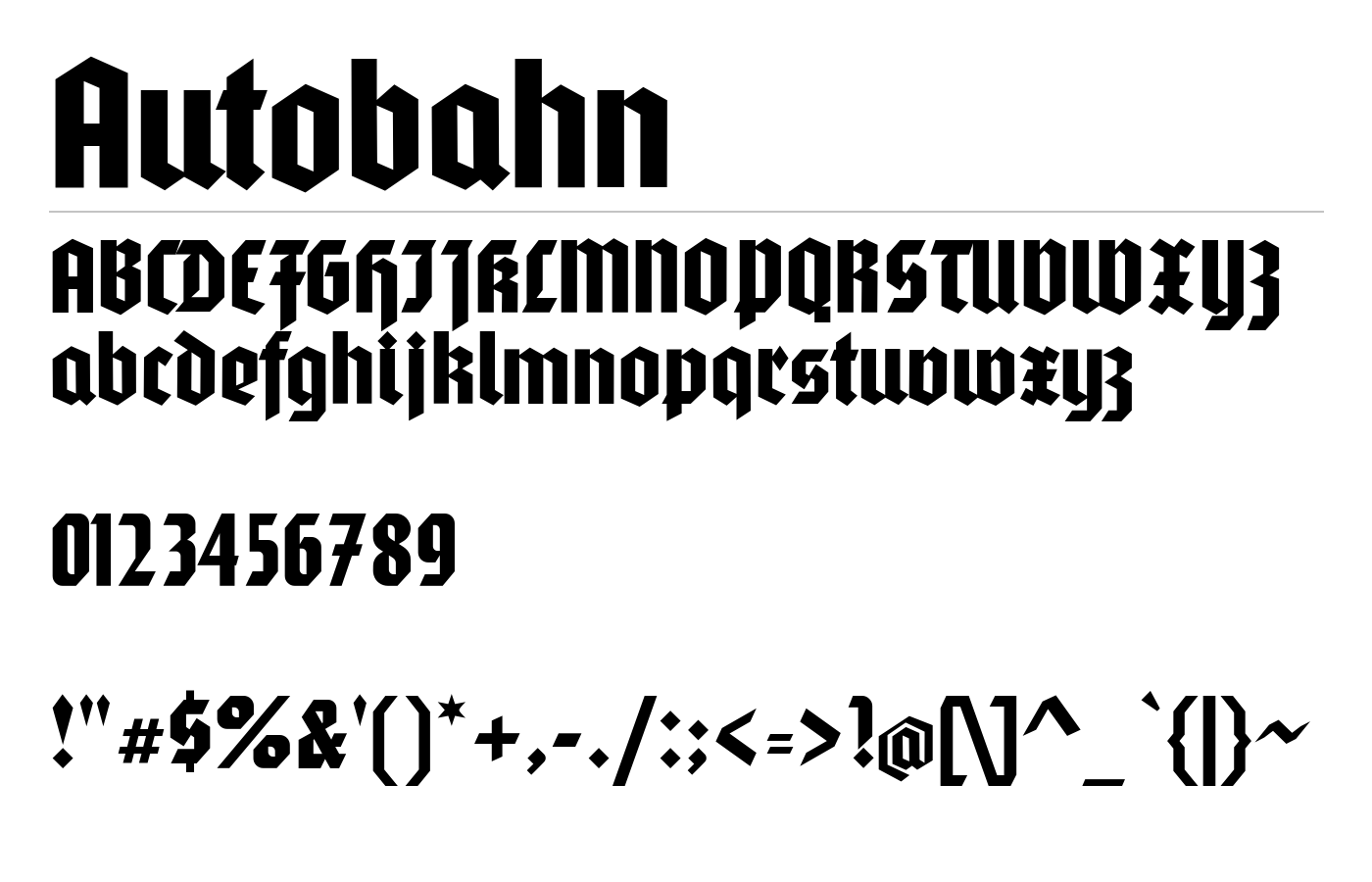
Autobahn is a bold, blackletter-inspired display font with a strong, geometric structure and high contrast in stroke thickness. Its condensed, angular letterforms evoke a vintage yet edgy feel, making it perfect for striking headlines, logos, or branding that wants to convey power and distinctiveness. This font’s sharp, dramatic style suits urban, industrial, or retro-futuristic themes that demand attention and personality.
Autobahn Font
| Designer | Peter Wiegel |